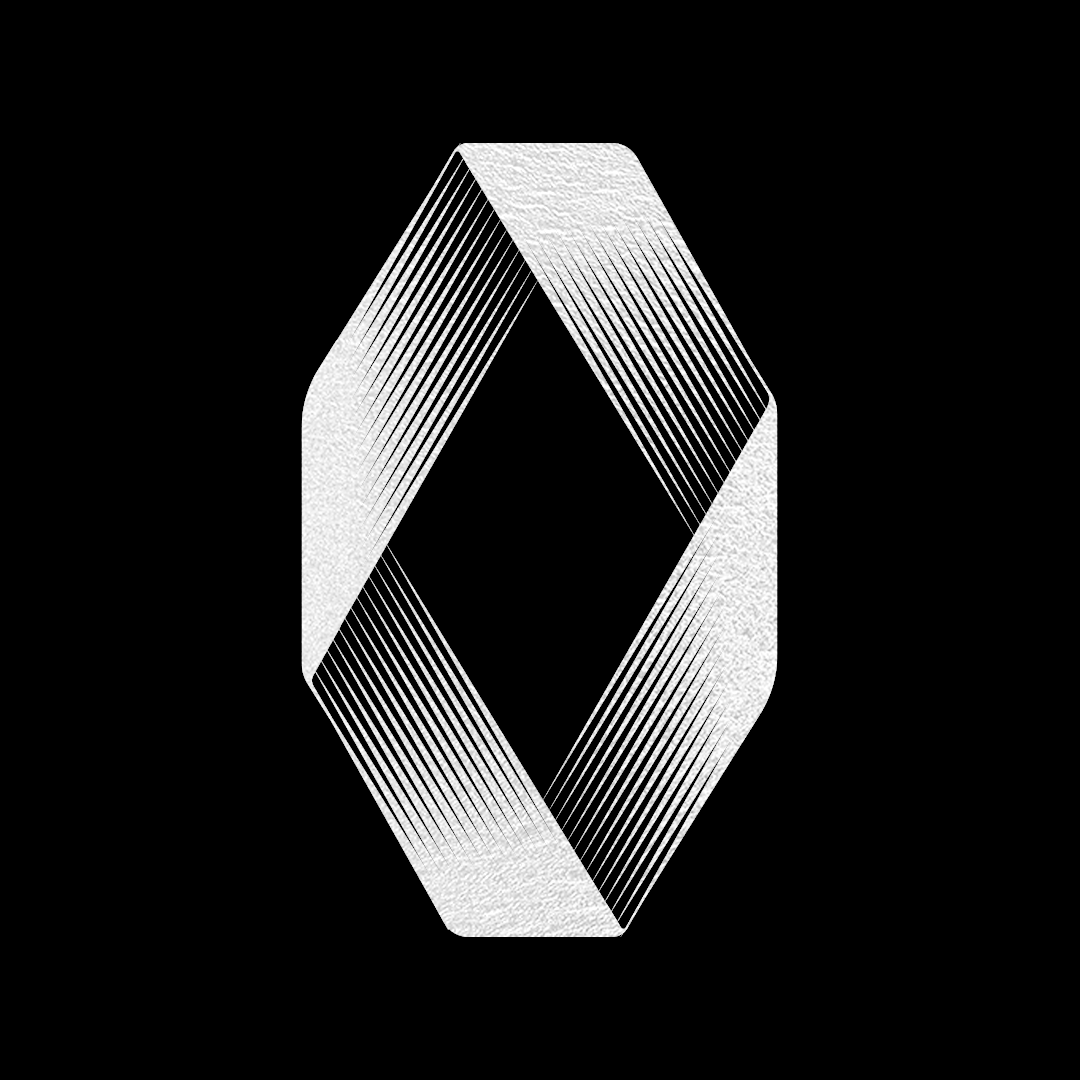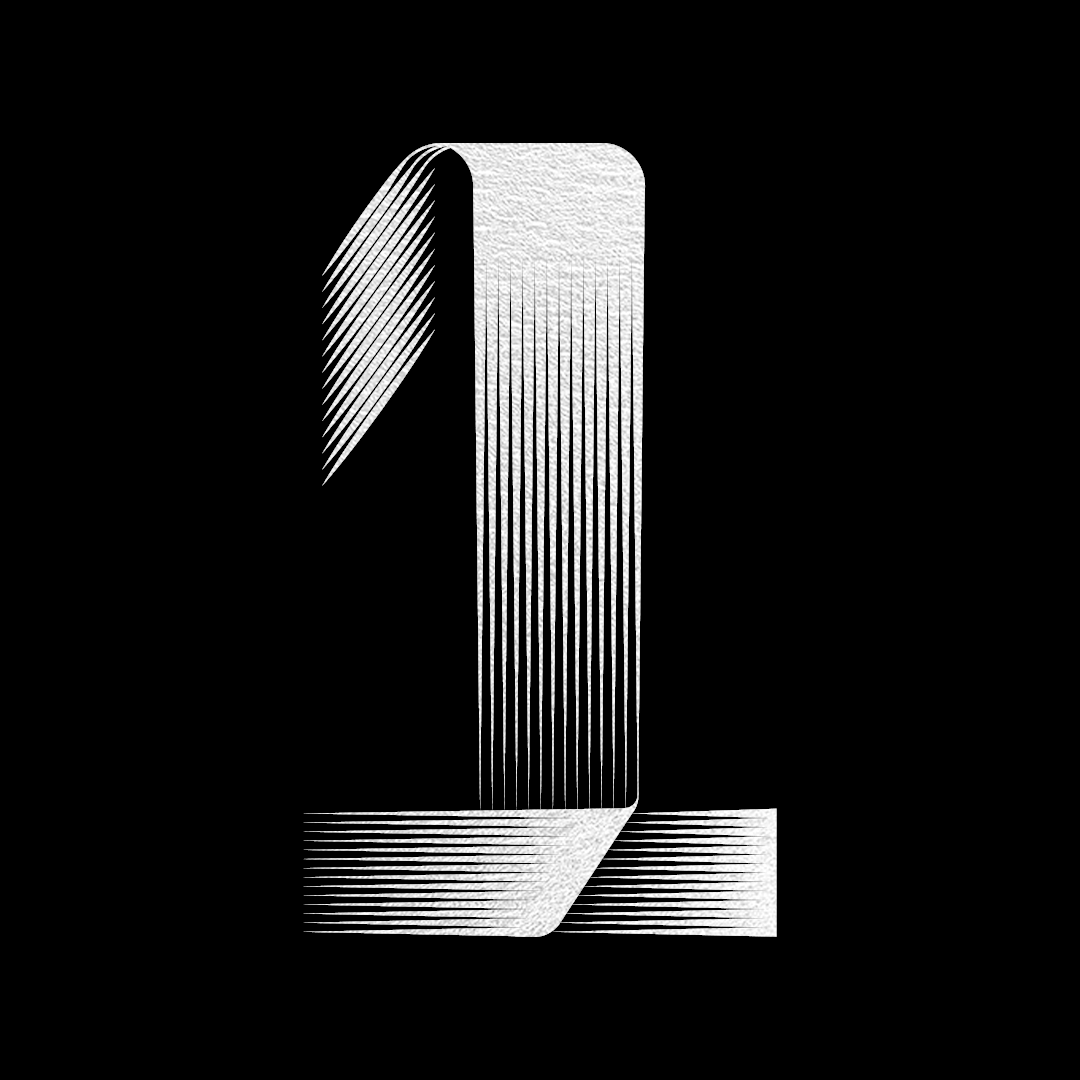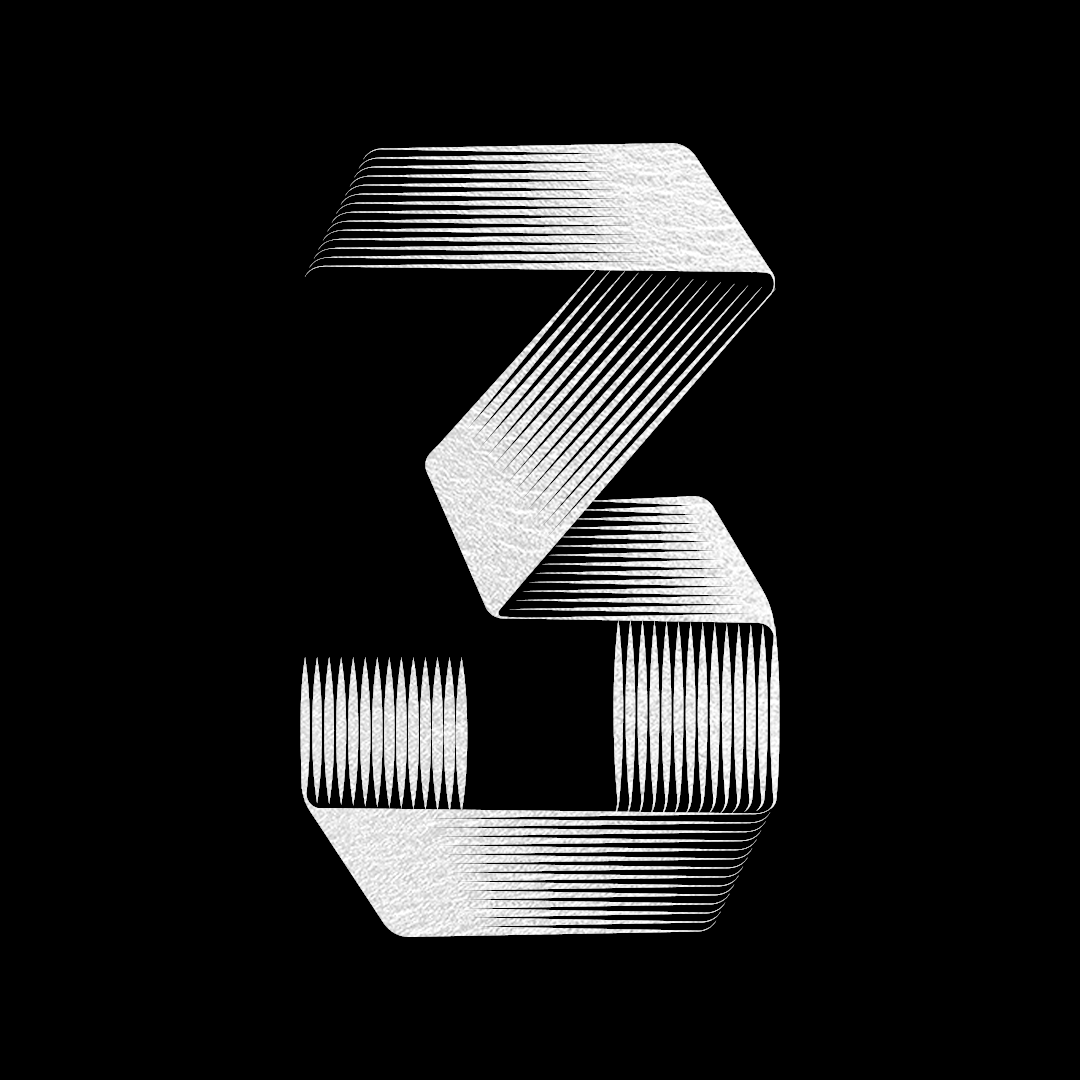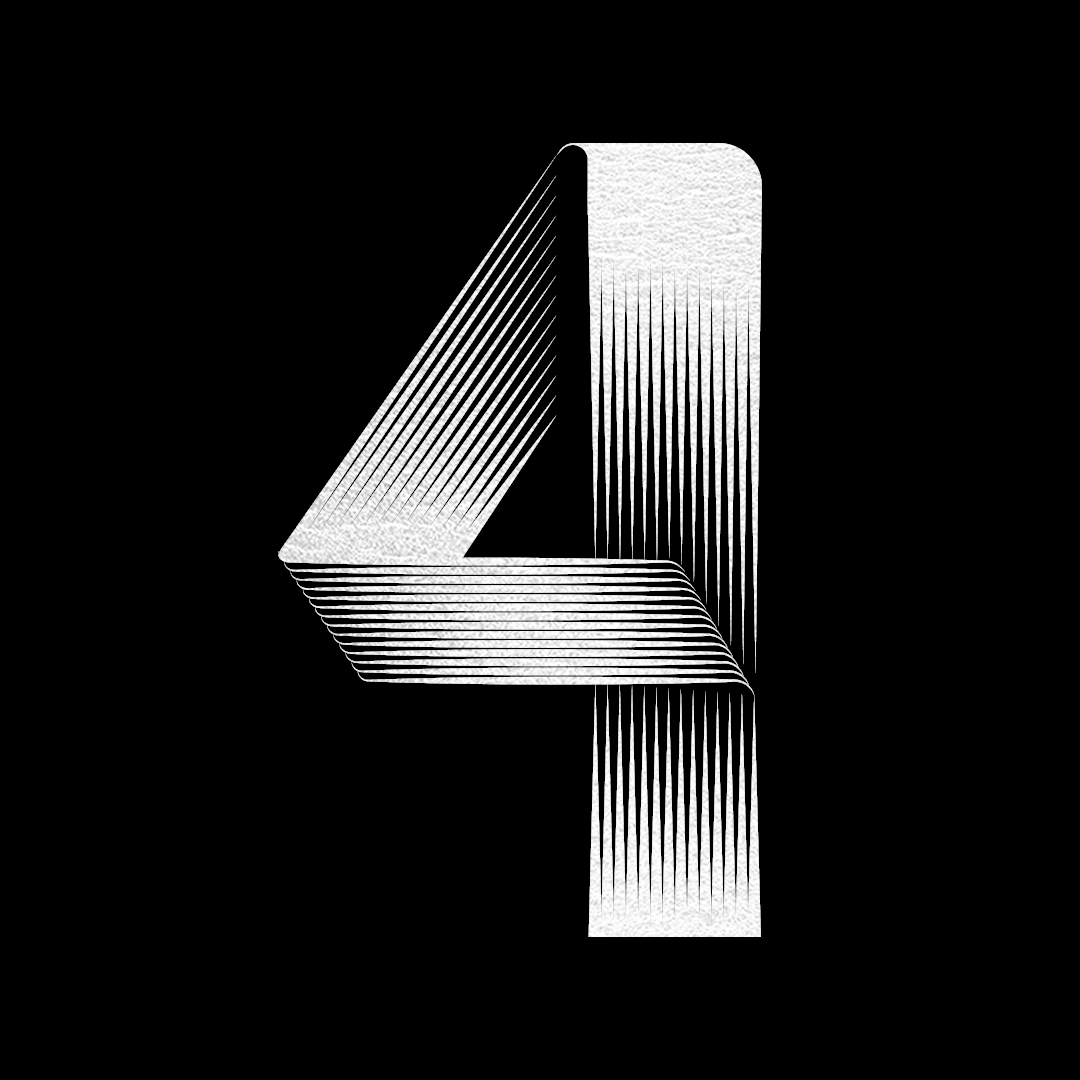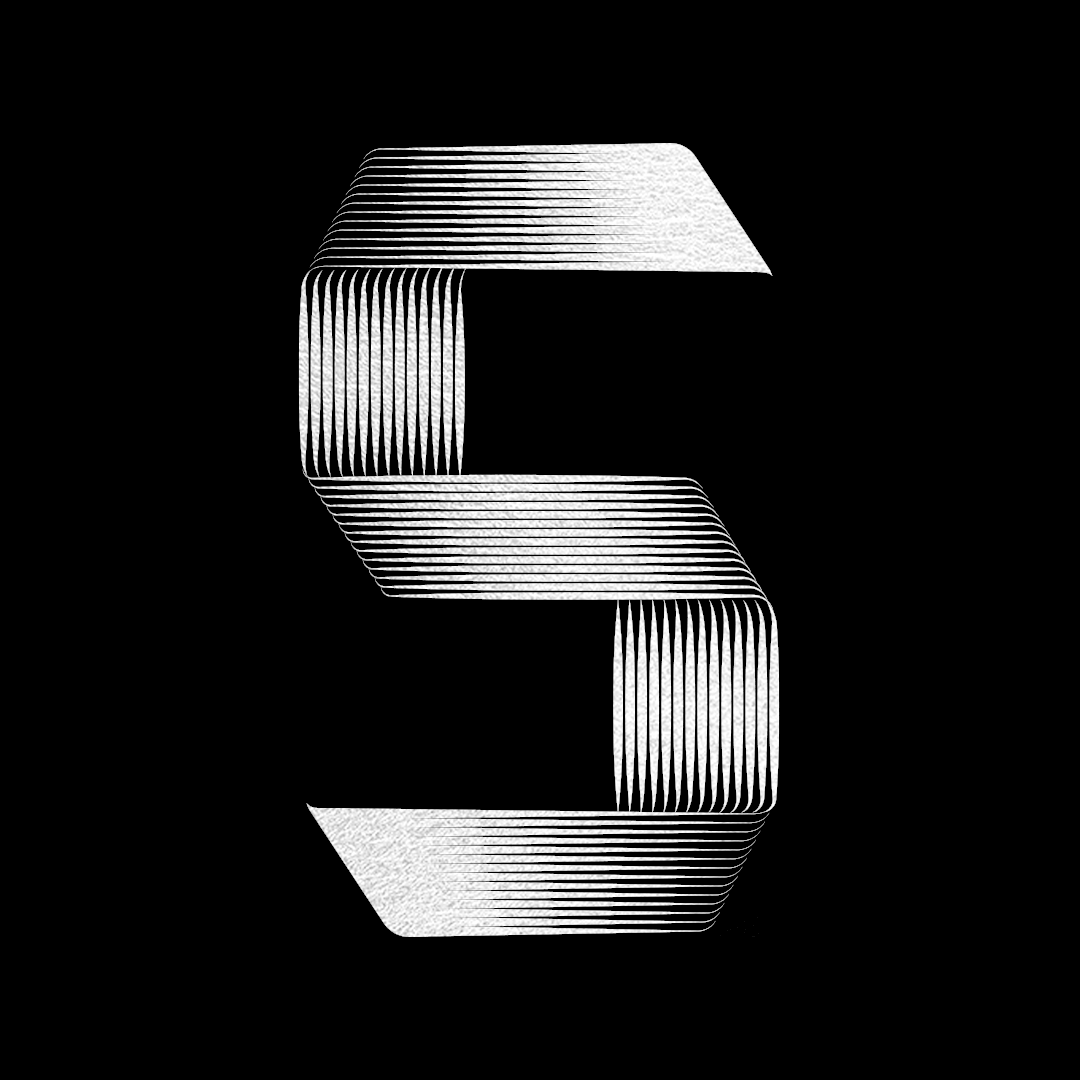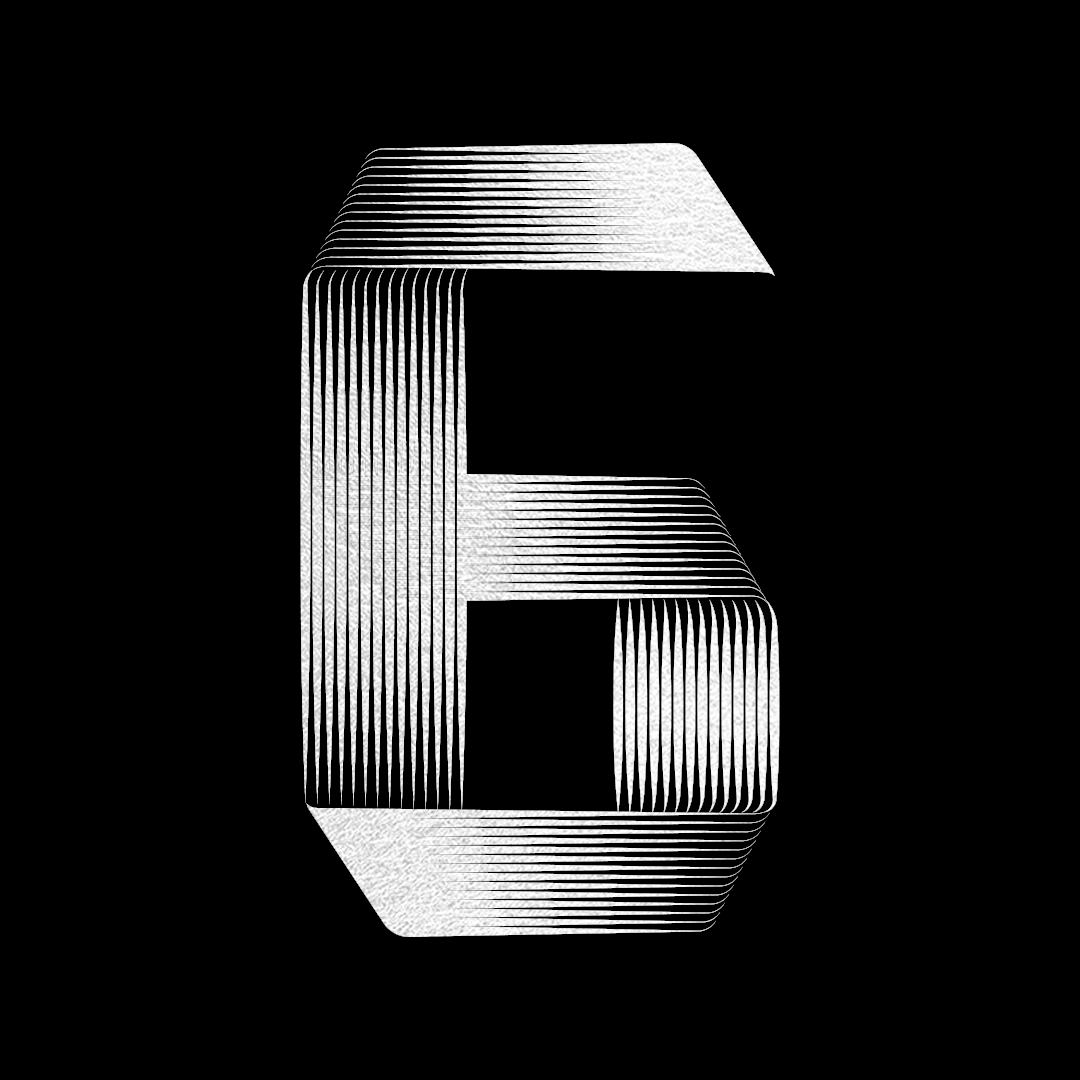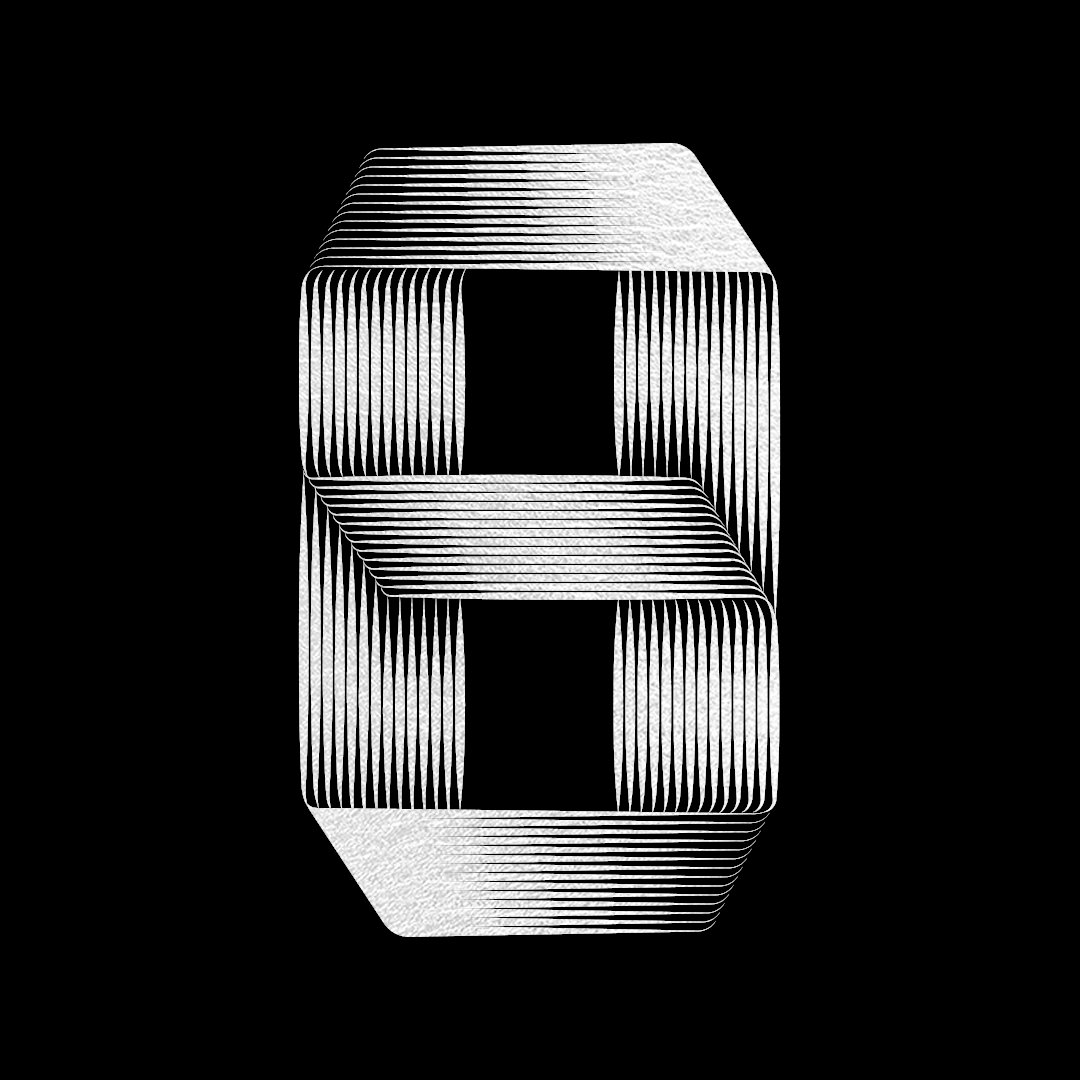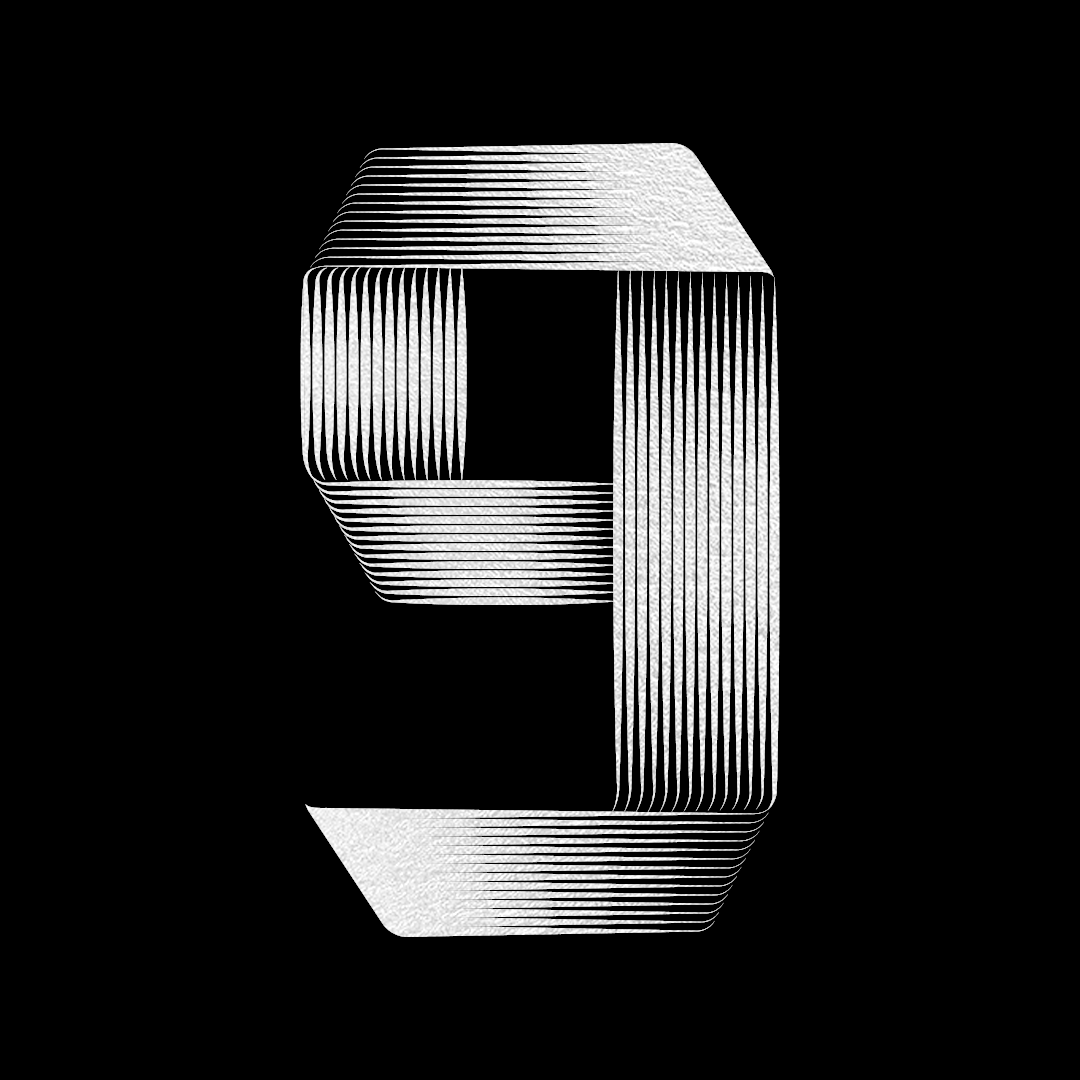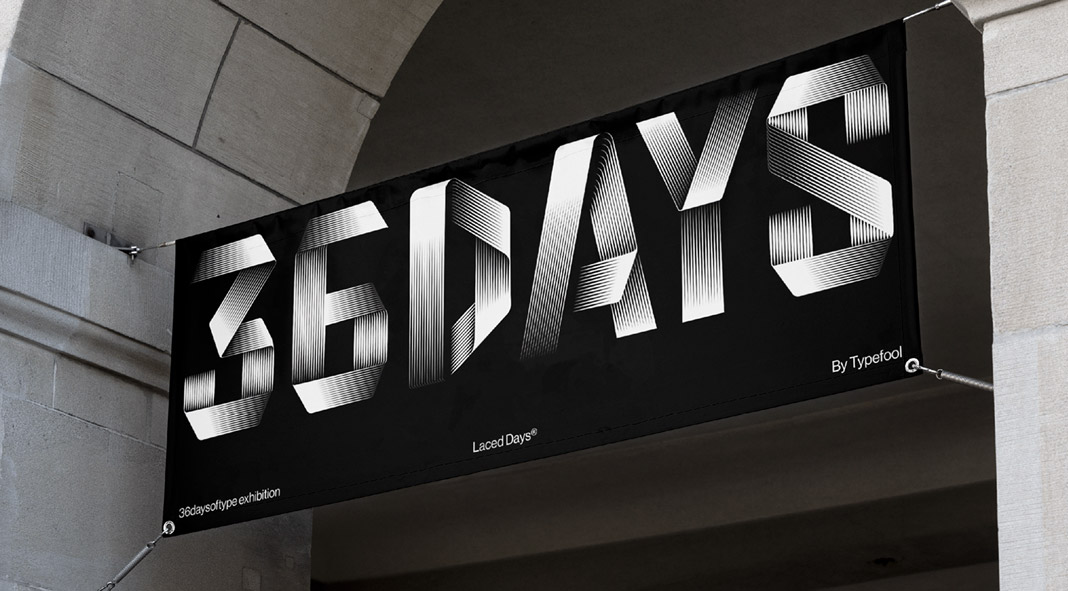
Laced Days is a free display font designed by Typefool for 36 Days of Type.
During 36daysoftype, Dutch design studio Typefool came up with a complete typeface. The bold, uniform style in the letters makes the font extremely suitable for display use. The font is available for free download (for personal use). You can download the font via the Typefool website.